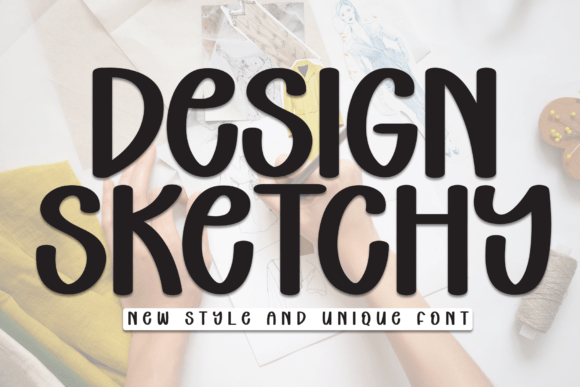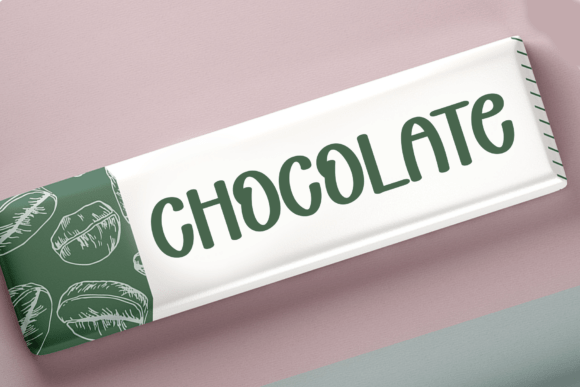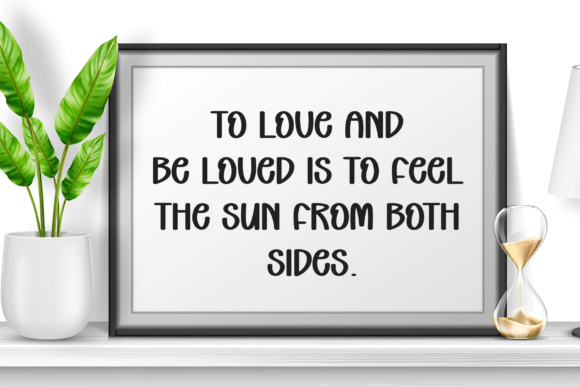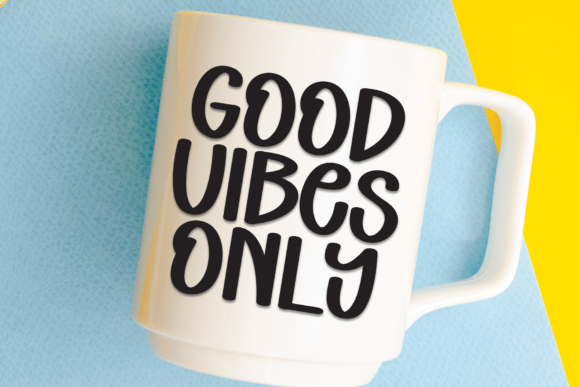
Design Sketchy Font: A Cute Handwritten Display Font for Cricut Crafts
About the Design Sketchy Font
The Design Sketchy Font offers a perfect balance of form and function for your design needs. Design Sketchy is a casual and neat display font that radiates a fresh, friendly vibe. With clean lines and a relaxed structure, it’s perfect for packaging, posters, and social media graphics. The approachable design adds charm and clarity to projects while maintaining a polished appearance.
Design Sketchy excels in headlines, short-form text, and branding applications where a friendly, approachable aesthetic is desired. Its casual nature makes it ideal for projects targeting a younger demographic or those emphasizing creativity and playfulness. Avoid using it for large blocks of body text or UI elements; its legibility suffers in smaller sizes or extended reading.
Pairing Design Sketchy with a clean sans-serif like Open Sans for body copy creates a strong contrast and balanced visual hierarchy. For a more playful feel, consider a rounded geometric sans-serif such as Circular Std. A subtle serif like Lora can add a touch of sophistication if a more refined look is needed.
The font’s overall personality is best described as friendly and approachable, yet sophisticated enough to maintain a professional feel. It’s a versatile option for brands seeking to communicate a casual yet confident image.
Design Sketchy Font Usage Examples
Design Sketchy Font Example